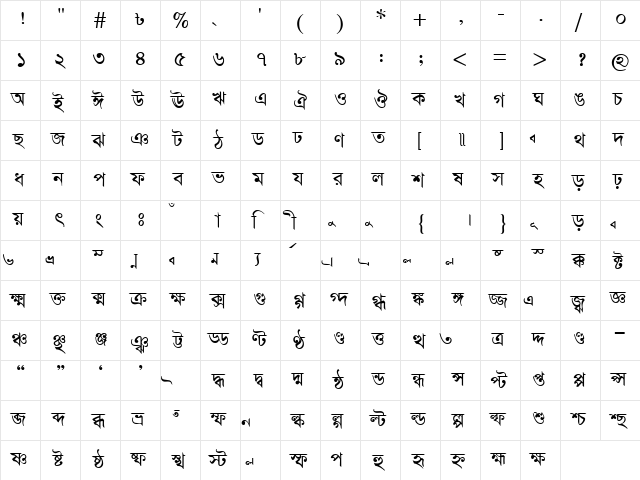
SutonnyMJ Regular
Design Context for SutonnyMJ Typeface
SutonnyMJ is a composed and adaptable typeface that performs quietly and consistently across a wide range of design contexts.